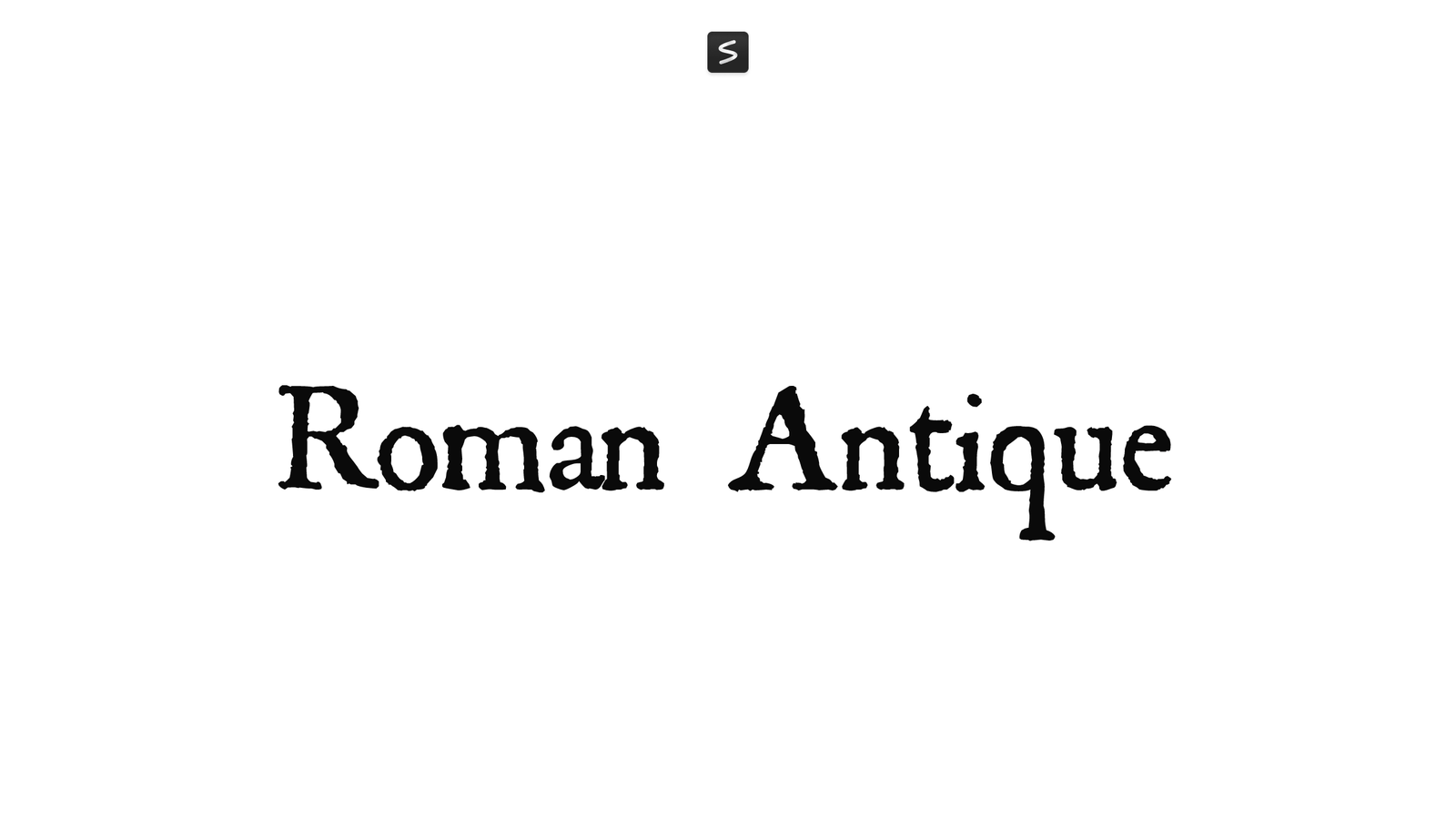
Roman Antique is a display font designed by Dieter Steffmann that draws inspiration from classical Roman letterforms and stone-carved typography. Its eroded, weathered appearance mimics the look of aged inscriptions, with characters that feel worn and textured as if they’ve been carved into stone and left to the elements for centuries.
The font’s distinctive quality lies in its rough, fragmented edges and uneven stroke weight, which give it an authentic antiquarian feel. Each letter carries a sense of history and weight, making it suitable for projects that benefit from a sense of age, tradition, or classical reference. Its design sits somewhere between elegant and deliberately distressed, lending itself well to historical documents, book covers, museum posters, or any design that needs to evoke a connection to the past.
Roman Antique works particularly well for period pieces, archaeological themes, classical branding, title treatments, and editorial projects that call for gravitas and historical texture. It’s a solid choice when you need letterforms that feel genuinely old rather than simply decorative.